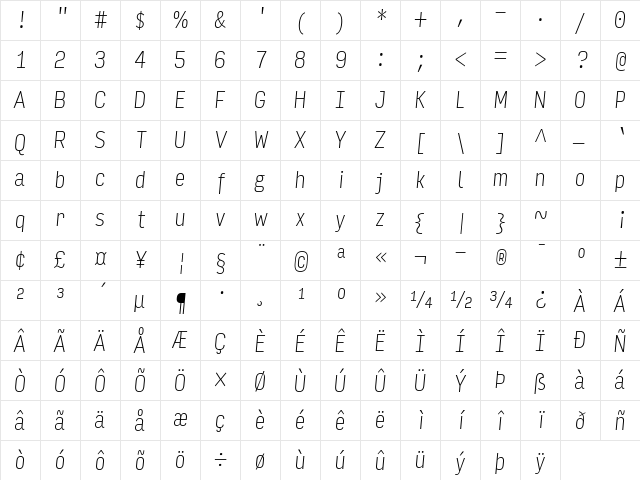
Input Sans Compressed Thin Italic
Style: Thin Italic
Foundry: David Jonathan Ross and The Font Bureau
Designer: David Jonathan Ross
Design Context for Input Sans Compressed
Input Sans Compressed is a composed and adaptable typeface that performs quietly and consistently across a wide range of design contexts. The slanted form adds forward momentum and visual energy. Its slender proportions lend an understated elegance to any composition.